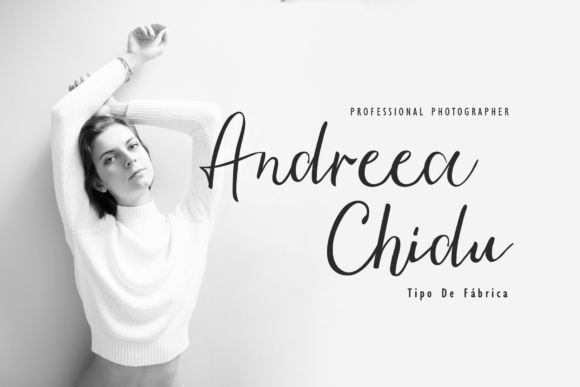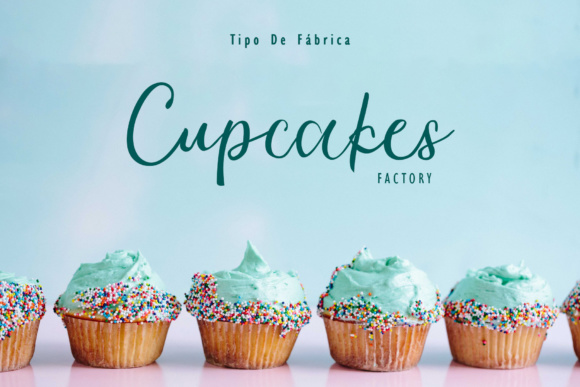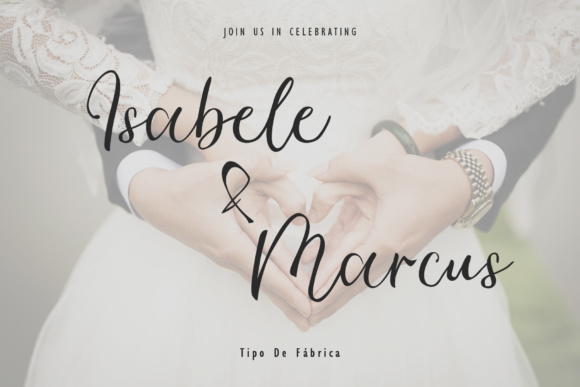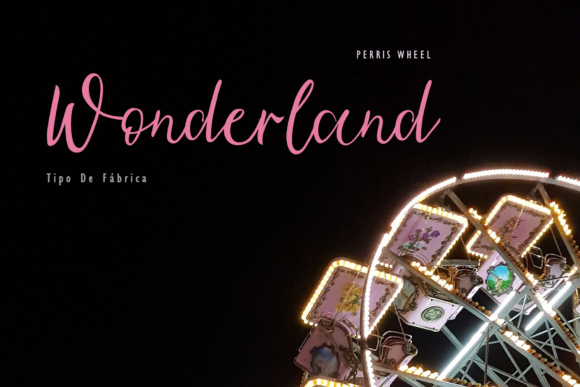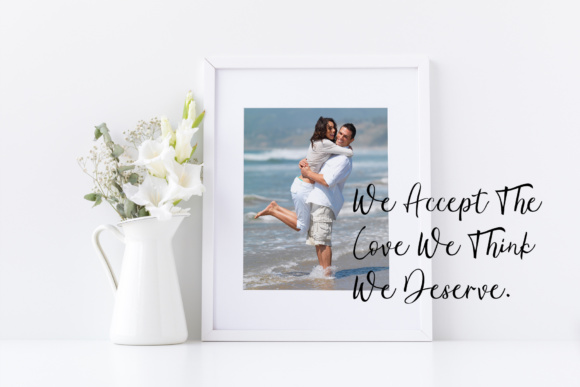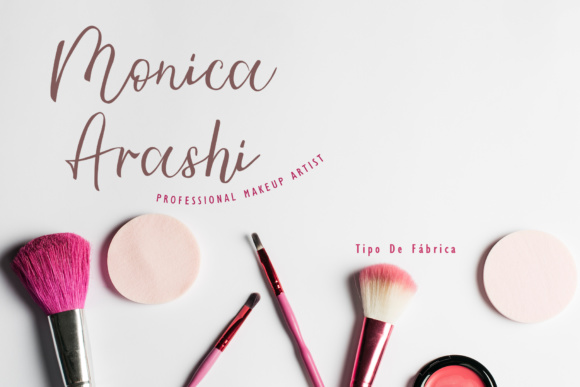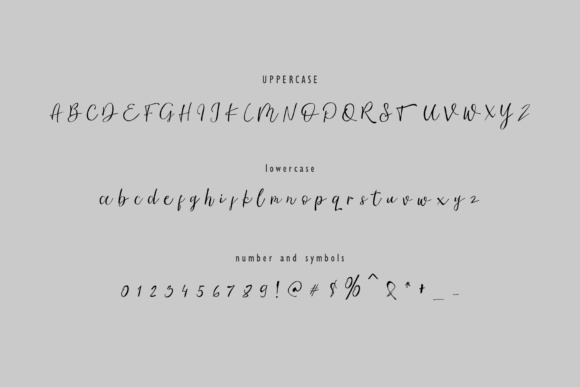
Ambre Script Font
About Ambre Script Font
The Ambre is a cute hand lettering font. It has an elegant touch which is perfect for Instagram stories, natural products, branding, and much more!